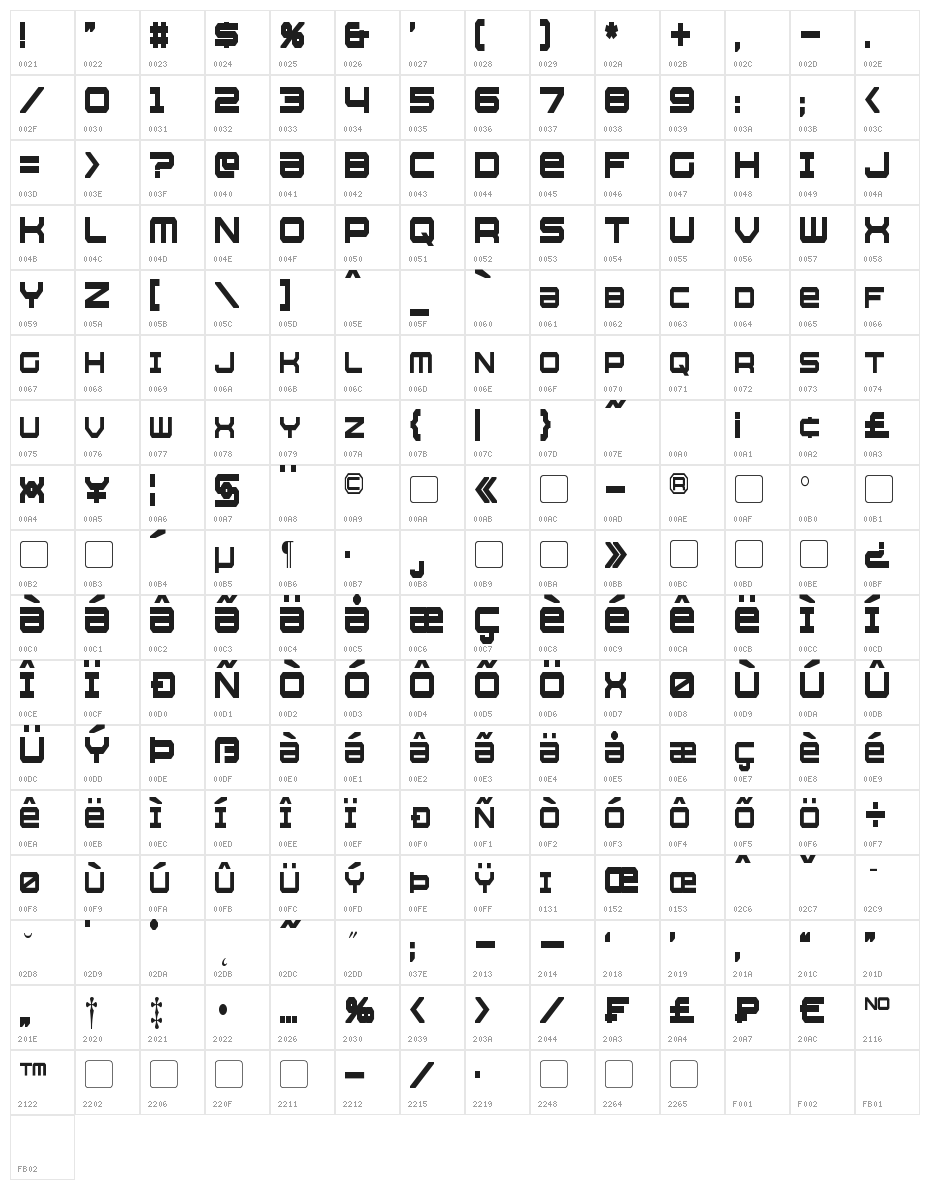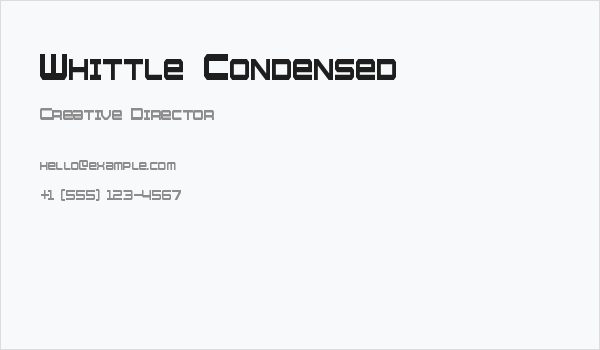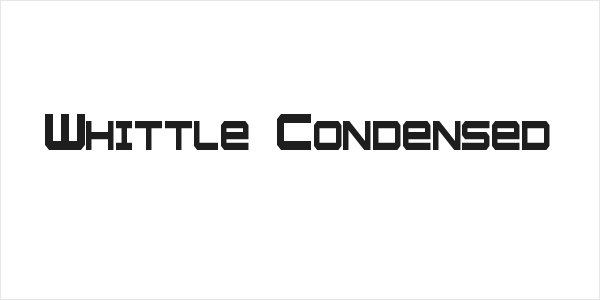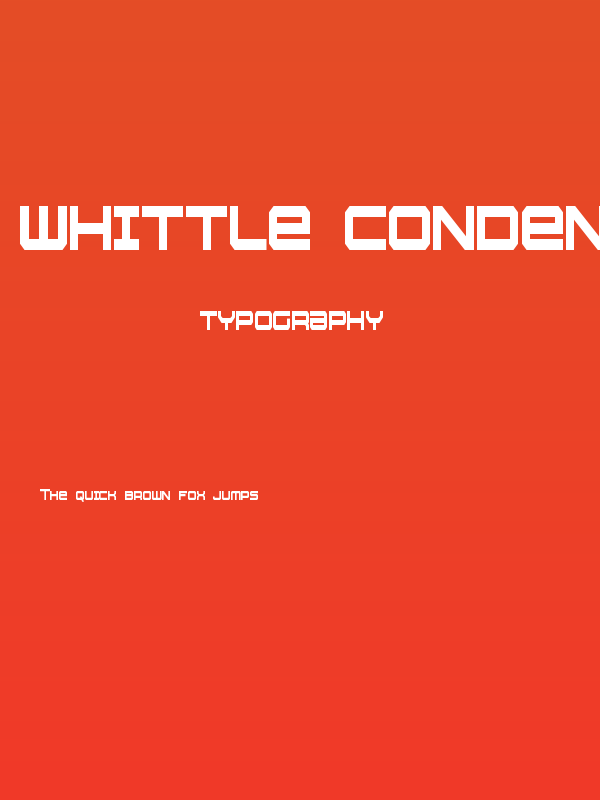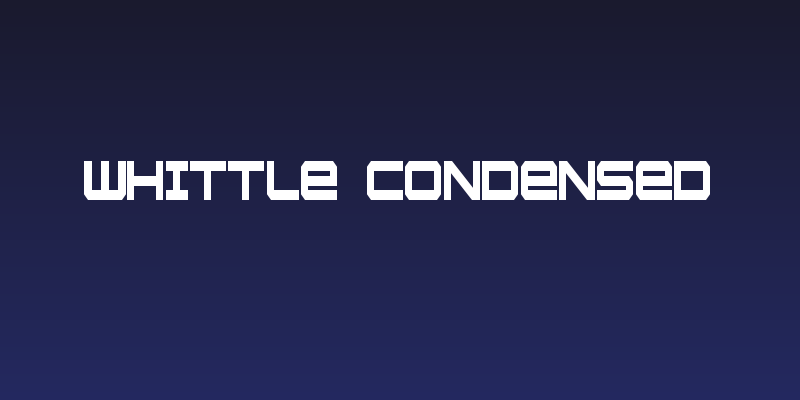
Whittle Condensed Font
Whittle Condensed Description
This font features a bold, geometric style with a condensed width, creating a strong and impactful visual presence. The characters are designed with sharp angles and straight lines, giving them a modern and futuristic appearance. The uniform stroke width across all characters contributes to a cohesive and structured look. The uppercase letters are particularly striking, with a block-like form that emphasizes their boldness. The numerals and special characters maintain the same geometric aesthetic, ensuring consistency throughout the font. This design is ideal for projects that require a contemporary and assertive typeface.